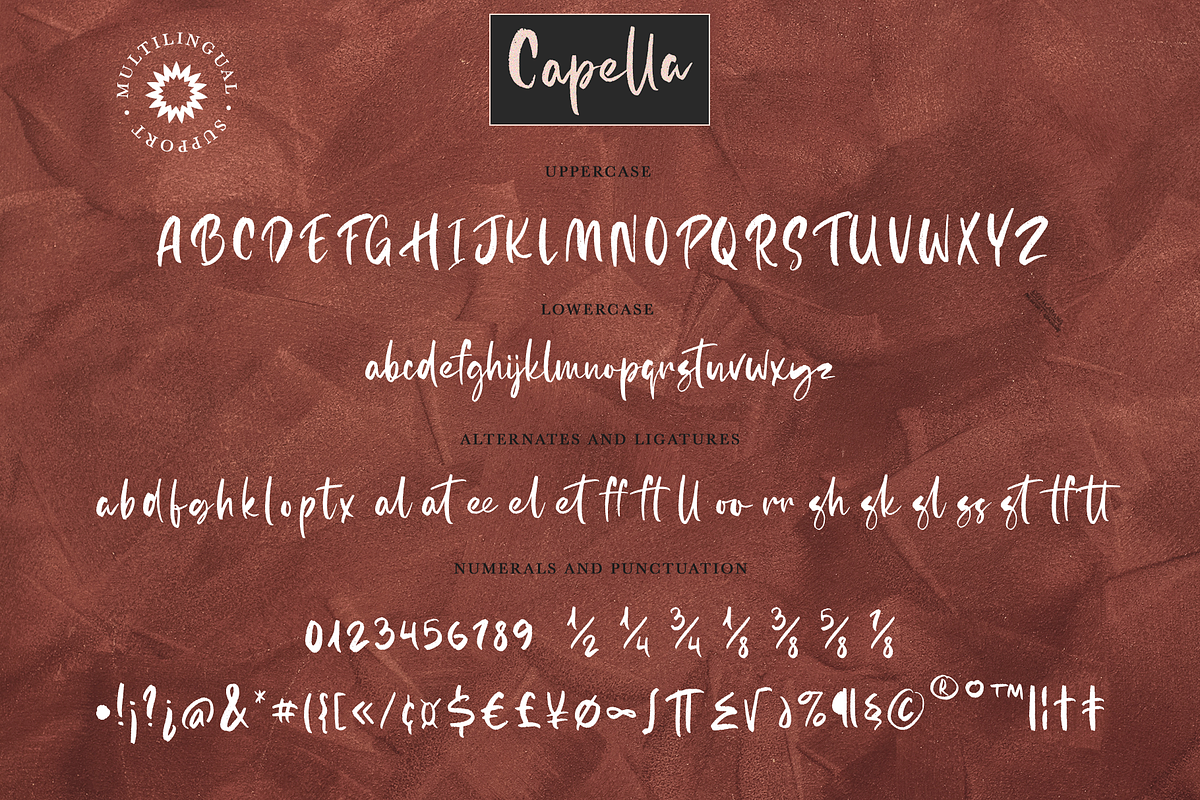
Capella
Capella - a new hand drawn brush font.
This is a beautiful and elegant hand drawn font, will emphasize your individuality in any project. You can also use them to create a logo or templates, invitations, blog, branding, marketing, book covers, magazines, advertising, stationery, logo design and much more. This font includes a basic set of letters and alternates, ligatures, well as numbers, fractions, and basic punctuation.
Following international symbols support: ÀÁÂÃÄÅĄÇĆÈÉÊËĘÌÍÎÏÐÑŃŁÒÓÔÕÖØÙÚÛÜŚŠŸÝŹŻŽßàáâãäåçèéêëìíîïðñòóôõöøùúûüýÿąćęłńśšźżž
Full alphabet with Uppercase and Lowercase A-z
Numbers, fractions
Punctuation and mathematical symbols